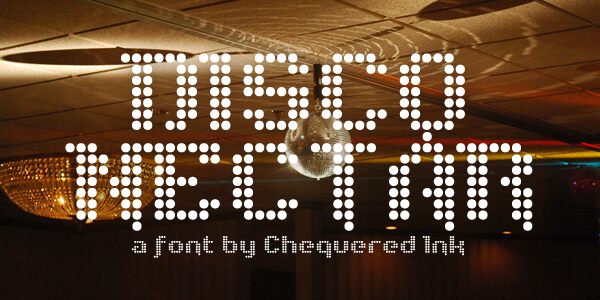
Disco Nectar Regular
Disco Nectar is a dazzling display font that exudes a captivating digital aesthetic. Designed by Chequered Ink, this bold and expanded typeface commands attention with its striking, dot-matrix inspired glyphs. The unique visual rhythm and geometric structure lend Disco Nectar a distinct retro-futuristic flair, effortlessly blending vintage charm with modern sensibilities.
This font's bold and expanded proportions make it an excellent choice for eye-catching headlines, bold branding, or dynamic typography-driven designs. Disco Nectar's digital-age appeal lends itself particularly well to sci-fi, gaming, or cyberpunk-inspired aesthetics, helping to evoke a futuristic atmosphere. Its versatility also extends to more playful applications, such as party invitations, event posters, or product packaging, where its bold presence can truly shine.